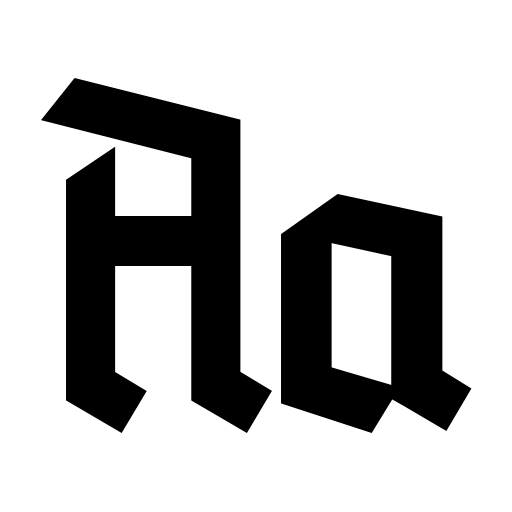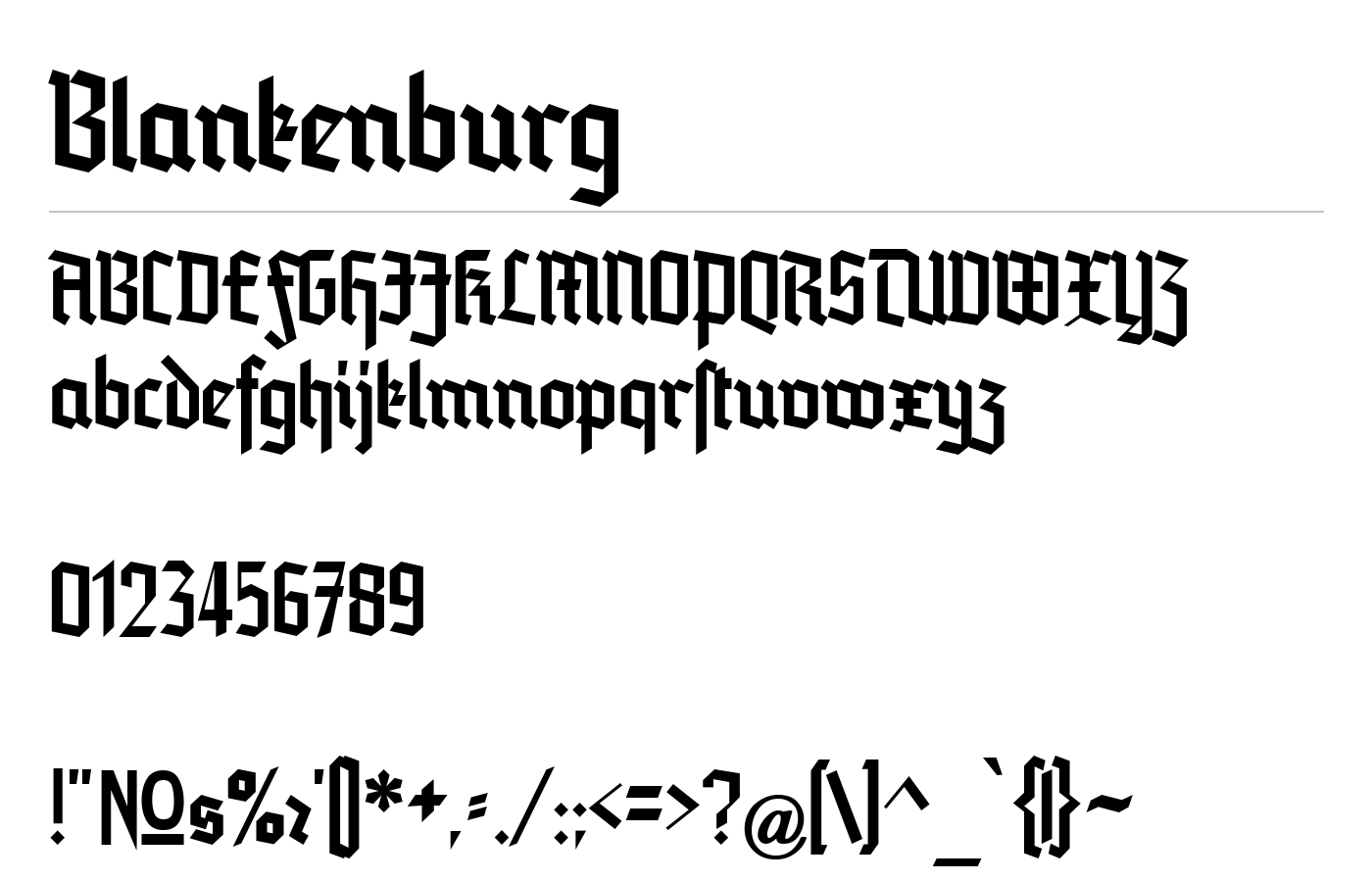
Blankenburg is a bold, condensed blackletter font with strong, angular strokes and a distinctive gothic flair. Its sharp edges and high contrast create a dramatic, vintage look that works well for attention-grabbing headlines, logos, and designs seeking a traditional or medieval-inspired style. This font’s unique character shapes give designs a bold, historic personality while remaining clear and impactful.
Blankenburg Font
| Designer | Peter Wiegel |